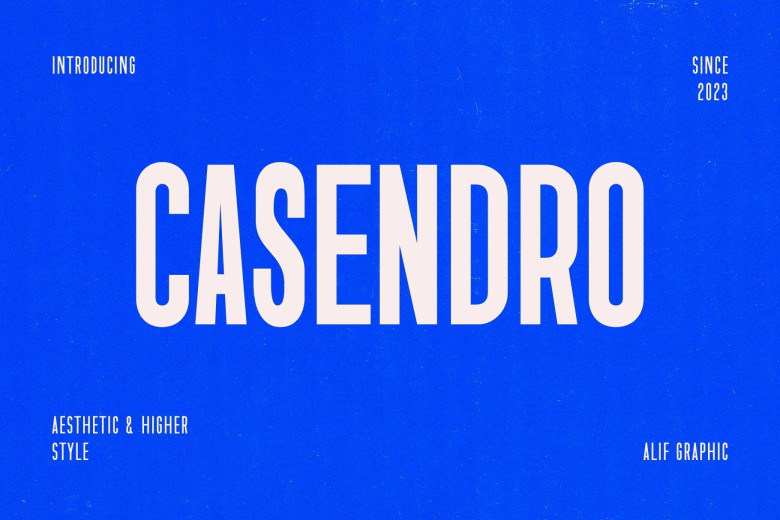
Casendro Font
Casendro is an all-caps condensed sans serif font with an impressive punch thanks to its modern and sleek style. Boasting the ideal blend of boldness and efficiency in its design, Casendro makes an impressionful statement and can add impactful designs that stand out.
Its elegant lines and sharp edges give it an eye-catching appearance; making your typography pop! Make your work pop by using Casendro’s all-caps style condensed font for modern and bold typography work.
Casendro Sans Serif Font